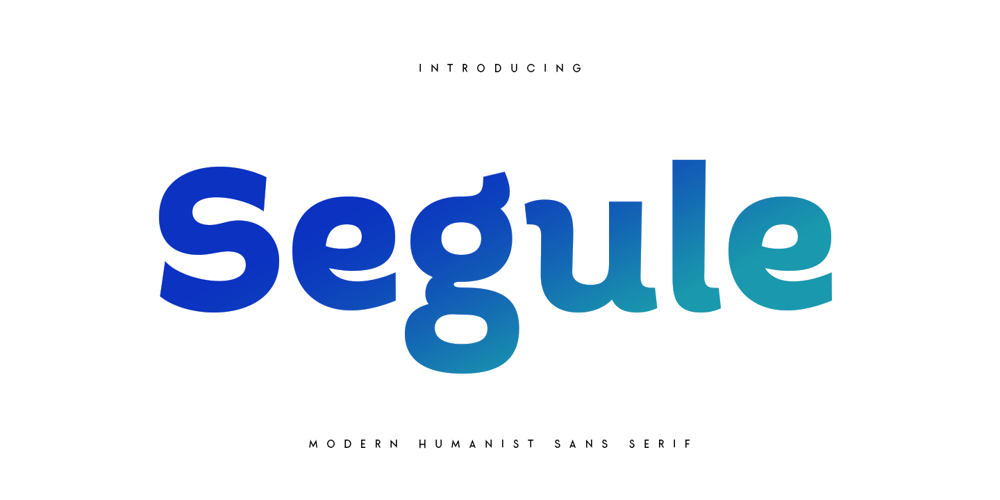
Segule
Segule font
Segule Font Family was designed by Zamroni Hamzah and published by Sensatype Studio. Segule contains 1 styles and family package options. A new San Serif Font that we created special for Headline, Title and more stand out typography needs. It’s so perfect to add your style and headline overview. And specially for Headline font, we crafted for unique style and modern feels so enjoy to create any project that will show your main idea out.Segule Modern Humanist Sans Serif Font ready with: Preview as a inspirations that you can do with Segule font Ready with All characters Wish you enjoy our font. 🙂